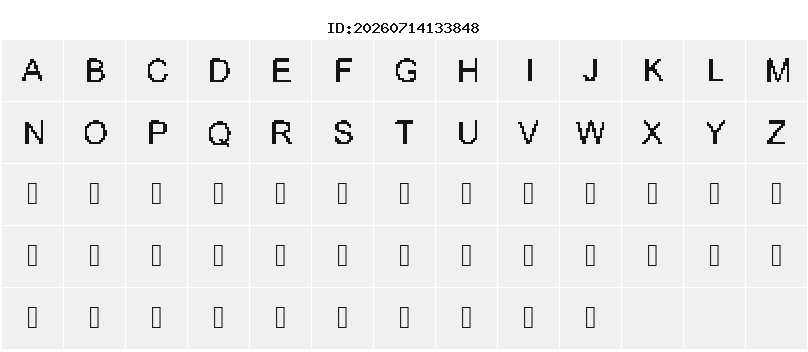
HARDORECAPSONLY Preview
About HARDORECAPSONLY.ttf
HARDORECAPSONLY.ttf is a modern, elegant sans-serif font designed for ultimate readability and visual harmony. Perfect for branding, headlines, web design, and print materials.